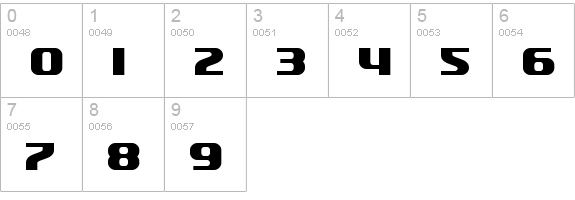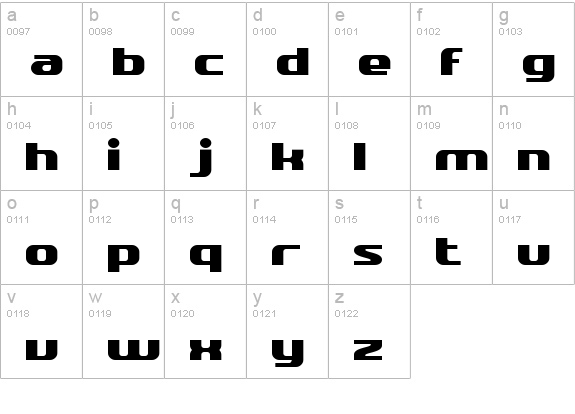
SF Quartzite Bold Font Details
SF Quartzite Bold is a strong, high-contrast variant in the SF typeface family \xE2\x80\x94 well suited to headlines, attention-grabbing titles, and strong calls-to-action.
SF Quartzite Bold is a visually stunning font that effortlessly combines modern elegance with a touch of boldness. Designed with meticulous attention to detail, this font exudes confidence and sophistication, making it perfect for a wide range of design projects. With its strong and striking letterforms, SF Quartzite Bold captivates the viewer's attention and adds a sense of authority to any text. Whether used for headlines, logos, or branding materials, this font leaves a lasting impression. The unique and intricate design of SF Quartzite Bold showcases its versatility, allowing it to adapt to various design styles and themes. Its clean lines and defined edges create a polished and professional look, while its bold presence adds a touch of excitement and energy. One of the most exceptional features of SF Quartzite Bold is that it is available for free. This means that designers and enthusiasts alike can freely download and utilize this remarkable font for their creative endeavors. Gone are the days of limited resources and expensive font licenses – SF Quartzite Bold is accessible to all, ensuring that everyone can benefit from its captivating charm. To easily access and download SF Quartzite Bold, head over to FontsMarket.com. This user-friendly platform provides a seamless and hassle-free experience, allowing you to quickly enhance your designs with this extraordinary font. Don't miss out on the opportunity to elevate your projects with the elegance and boldness of SF Quartzite Bold – it's just a click away!